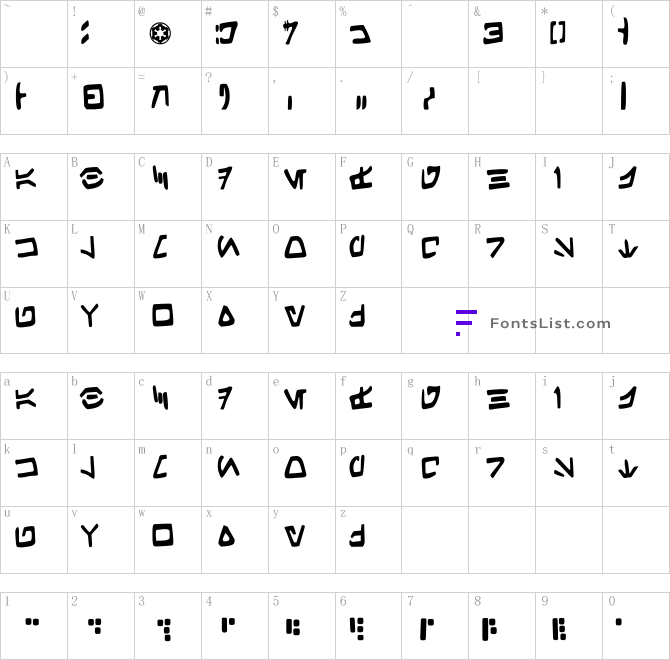
- Font Name:Aurek-Besh Hand
Aurek-Besh-Hand.ttf is a very beautiful artistic font, Aurek-Besh-Hand.ttf is widely used in the design and printing of various books and pictures,Aurek-Besh-Hand.ttf has a strong visual impact,Aurek-Besh-Hand.ttf is a commonly used font in newspapers, magazines and books, and is used in posters, e-commerce Poster design, store design, logo design, font design and other fields.Aurek-Besh-Hand.